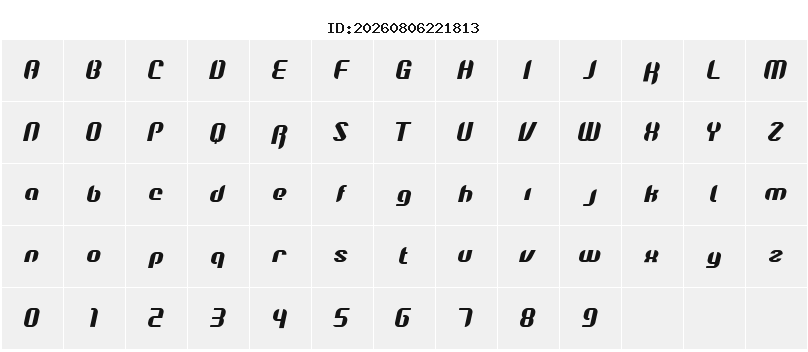
Octane Premium Preview
• Font Name: Octane Premium
• Full Font Name: OctanePremium
• PostScript Name: OctanePremium
About Octane Premium.ttf
Octane Premium.ttf is a modern, elegant sans-serif font designed for ultimate readability and visual harmony. Perfect for branding, headlines, web design, and print materials.